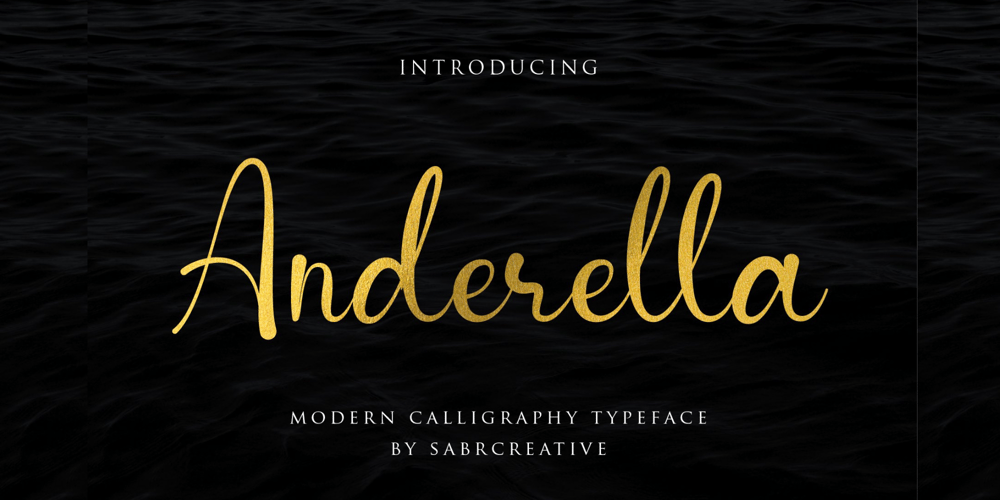
Anderella Font Family was designed by Irpan Maulana and published by Sabrcreative. Anderella contains 1 styles and family package options. Unleash the beauty of flowing script with the Anderella Script Font. This typeface is a symphony of graceful curves and exquisite details, perfect for adding a touch of sophistication to your creative projects. With a harmonious blend of uppercase and lowercase characters, Anderella brings a sense of balance and versatility to your typography.